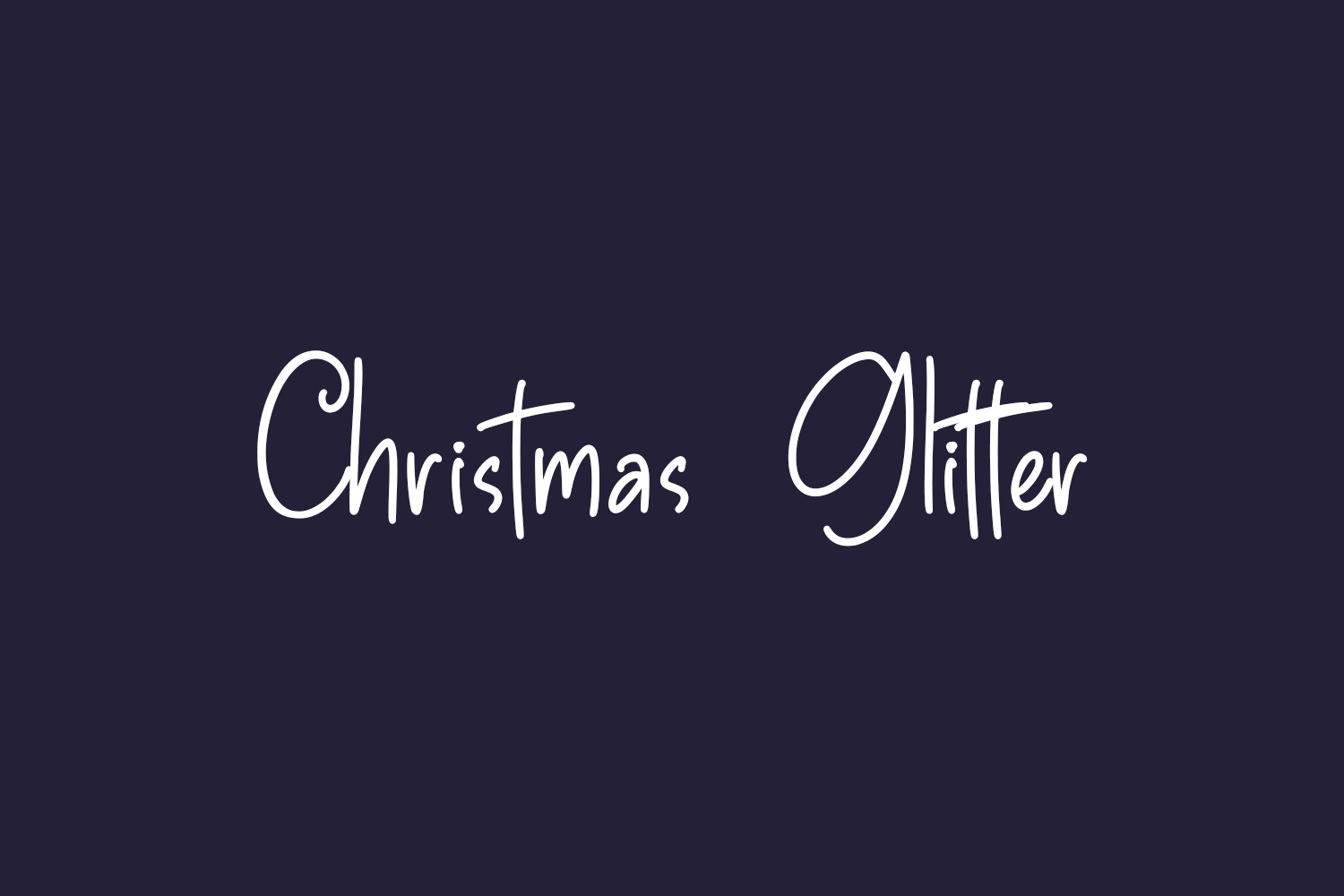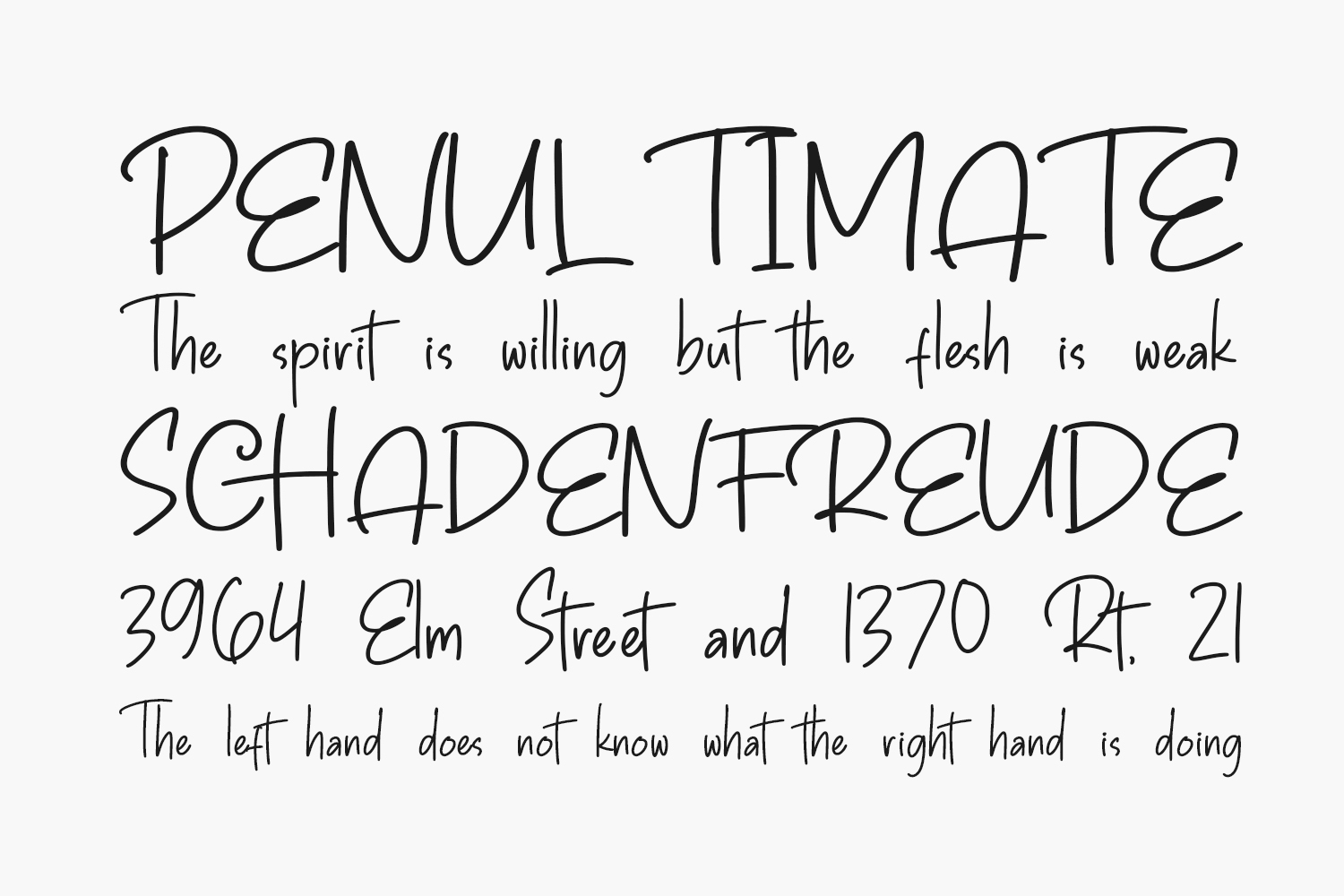
Christmas Glitter Free Font is a romantic and sweet calligraphy typeface with characters that dance along the baseline. Christmas Glitter Free Font is free for personal use only. Please purchase the full version for commercial use.
Designed by Mozatype